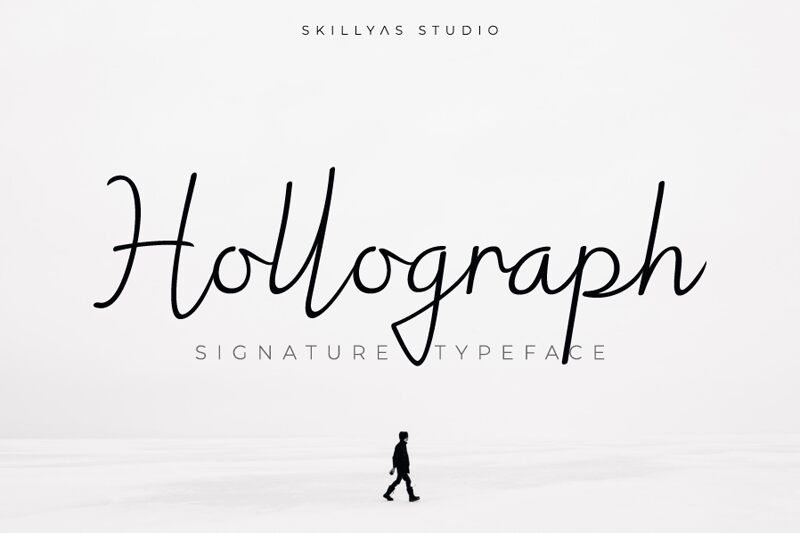
hollograph
Hollograph, a captivating handwritten signature font by skillyasstudio.com, exudes elegance and finesse.
With its light weight and flowing curves, this font is perfect for adding a touch of sophistication to wedding invitations, personal branding, and upscale product packaging. Its graceful strokes make it an ideal choice for creating beautiful logos and social media posts that demand attention. Hollograph's distinctive style adds a sense of authenticity to any project, making it the go-to font for fashion magazines, luxury brands, and boutique businesses seeking to make a lasting impression.